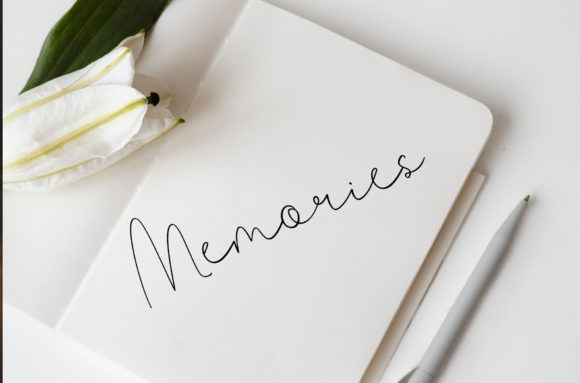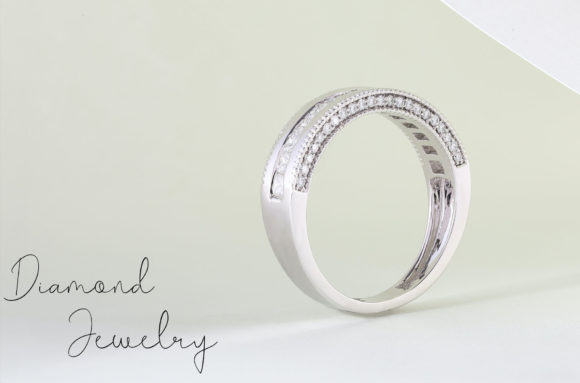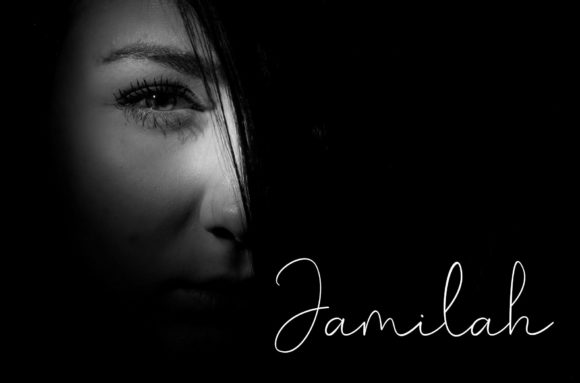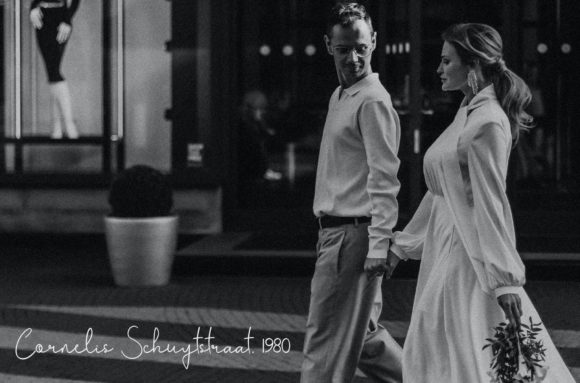
The Perfect Font for Your Next Design Project: Anytime Font
I’ll never forget the time I was working on a wedding invitation design project, and I just couldn’t seem to find the right font. My client wanted something modern, elegant, and sophisticated, but also playful and romantic. I scoured the internet, tried out dozens of fonts, and still, nothing seemed quite right. That was until I stumbled upon the Anytime Font. ✨
As soon as I saw it, I knew I had found the one. The beautiful calligraphy, the lovely ligatures, and the gorgeous alternates all caught my eye. I knew I had to share this amazing font with my fellow designers, crafters, and creative hobbyists, so let’s dive in and take a closer look at what makes Anytime Font so special.
Anytime Font: A Modern and Classy Calligraphy Font
Anytime Font is a stunning modern calligraphy font that exudes elegance and sophistication. Its beautiful stroke and lovely alternates make it perfect for a variety of design projects, including wedding invitations, fashion cards, and more. One of the standout features of Anytime Font is its PUA encoding, which makes it easy to access all of the glyphs and swashes. ✅
Whether you’re a seasoned designer or just starting out, Anytime Font is a great addition to your font library. Its versatility and beauty make it perfect for a wide range of projects, from formal invitations to social media graphics.
Honest Review: What I Love and What I Don’t
- Beautiful, modern calligraphy style
- Lovely ligatures and alternates
- PUA encoded for easy access to glyphs and swashes
- Perfect for wedding invitations, fashion cards, and more
The Not-So-Good: ⚠️
- Some users may find the font a bit too ornate for certain projects
- Limited use in very formal or traditional designs
- May require some practice to get the hang of using the OpenType features
While Anytime Font is an amazing font, it’s not perfect. However, I believe its pros far outweigh its cons, and it’s definitely worth checking out.
The Story Behind Anytime Font
Anytime Font was designed with the intention of creating a beautiful, modern calligraphy font that would be perfect for a variety of design projects. The designer wanted to create a font that was both elegant and playful, with a unique and distinctive look. With its lovely ligatures and alternates, Anytime Font is sure to add a touch of sophistication to any design.
Q: What is Anytime Font?
A: Anytime Font is a modern and classy calligraphy font that comes with beautiful ligatures and lovely alternates.
A: PUA encoding is a way of encoding fonts that allows for easy access to glyphs and swashes.
Q: Is Anytime Font easy to use?
A: Yes, Anytime Font is relatively easy to use, especially with its PUA encoding and OpenType features.